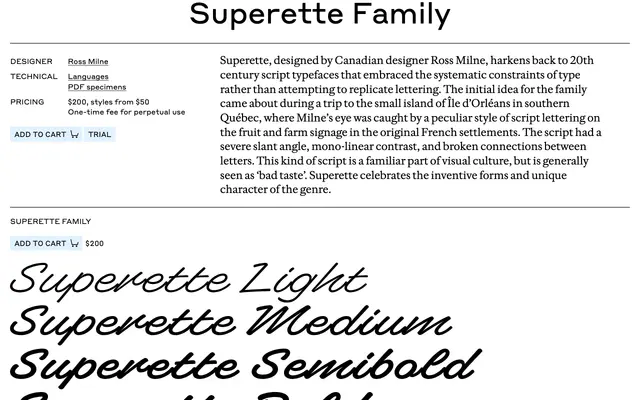
Superette specimen from Commercial Type
A compact five-style display family from Ross Milne with four upright weights and a shaded cut, drawn for signage and packaging.
A compact display family from Commercial Type by Ross Milne, drawn as a contemporary take on mid-century American storefront and grocer lettering. Four upright weights from Light to Bold cover the working range, and a Shaded cut adds dimensional decoration for posters and packs. Sits on food and drink packaging, hospitality signage and editorial display where you want a Americana flavour without going full pastiche.
Commercial Type list Superette as designed by Ross Milne. A compact display family with four upright weights and a Shaded companion.